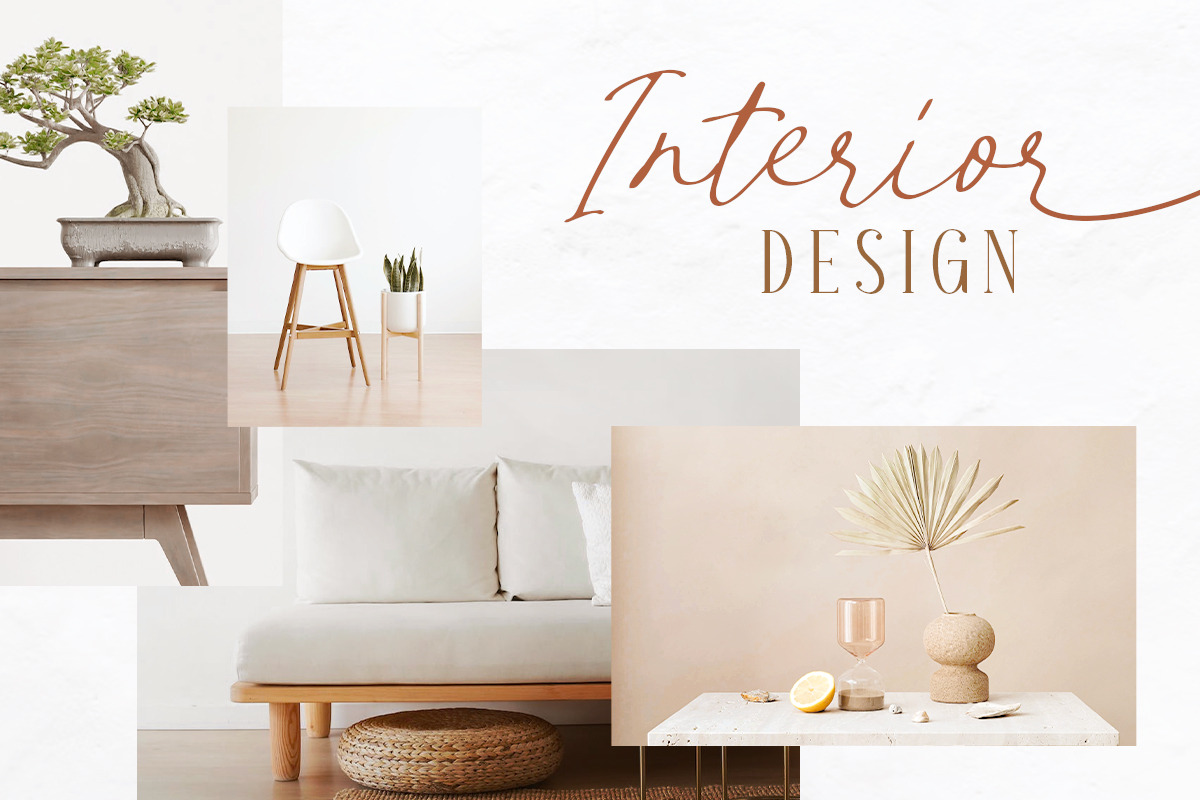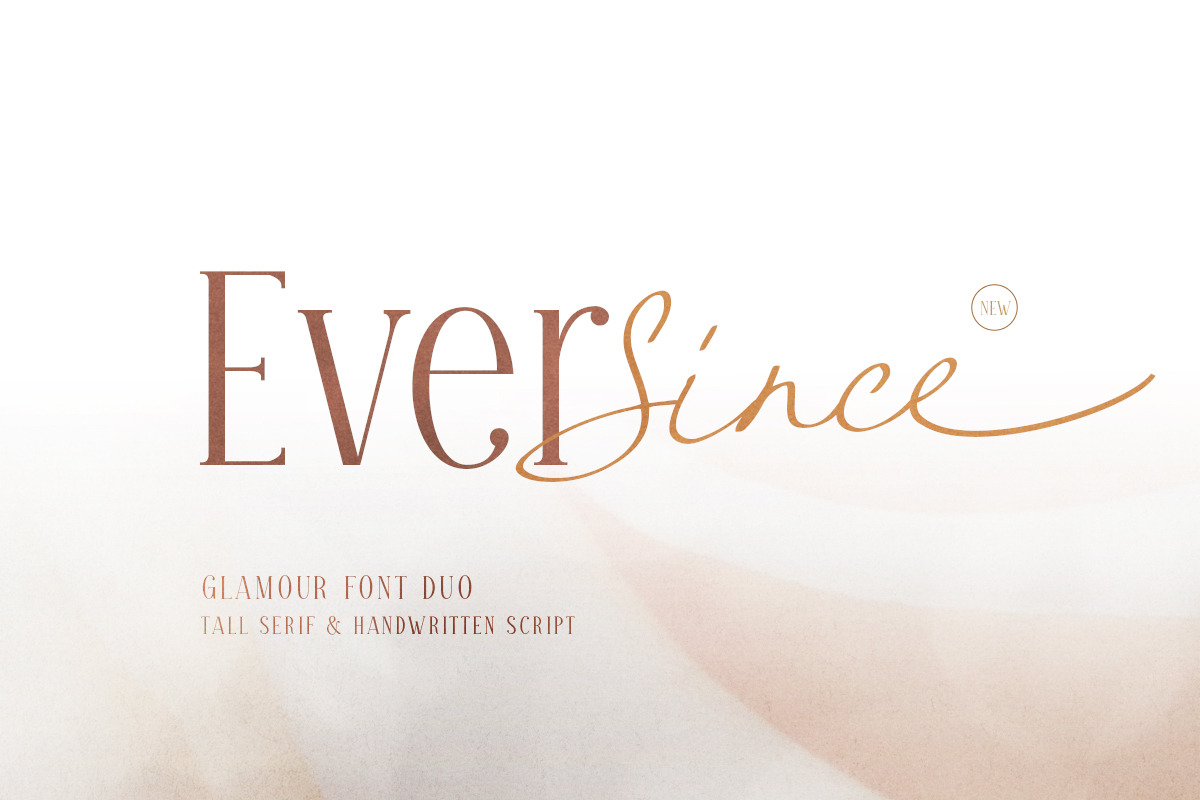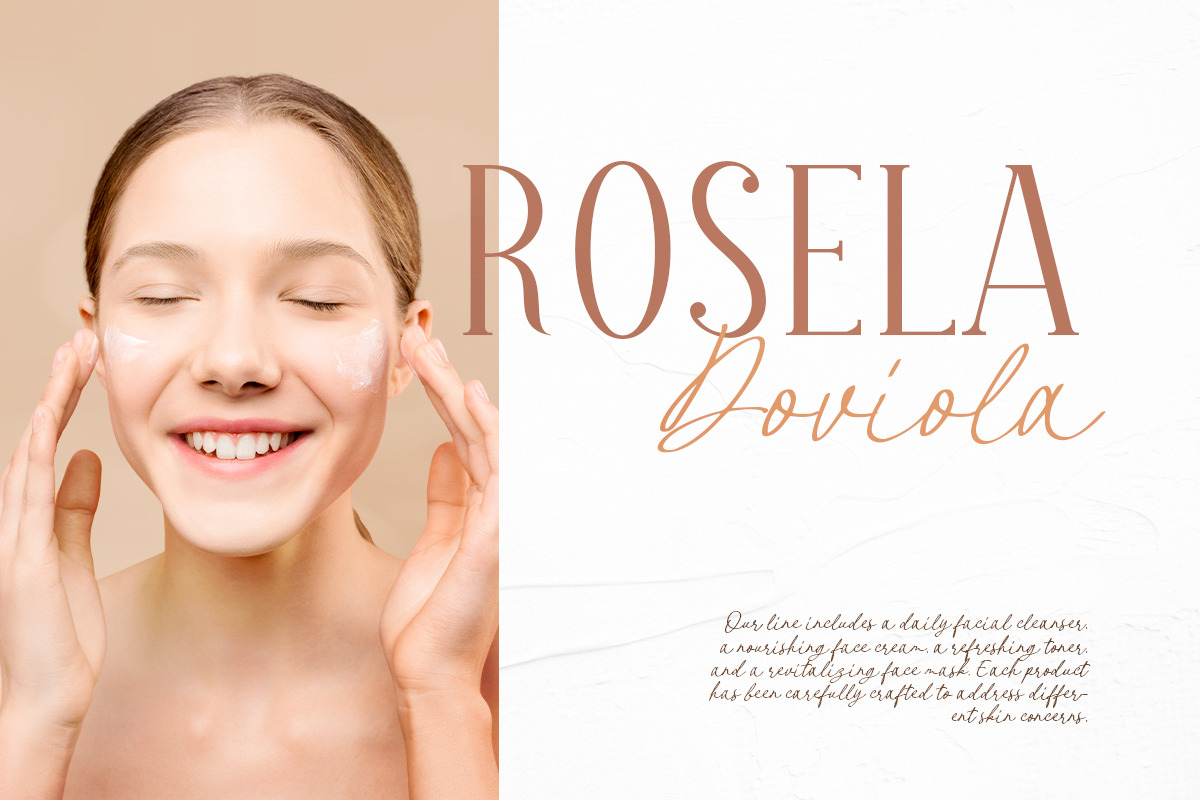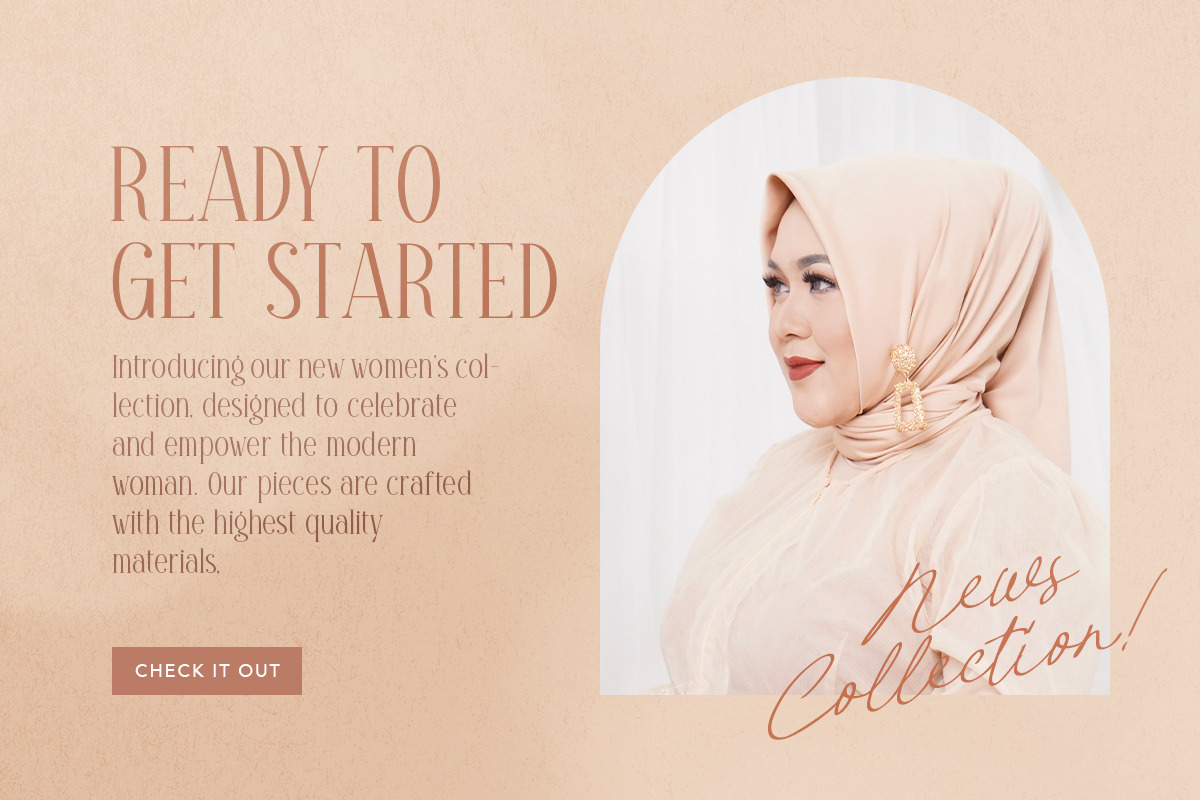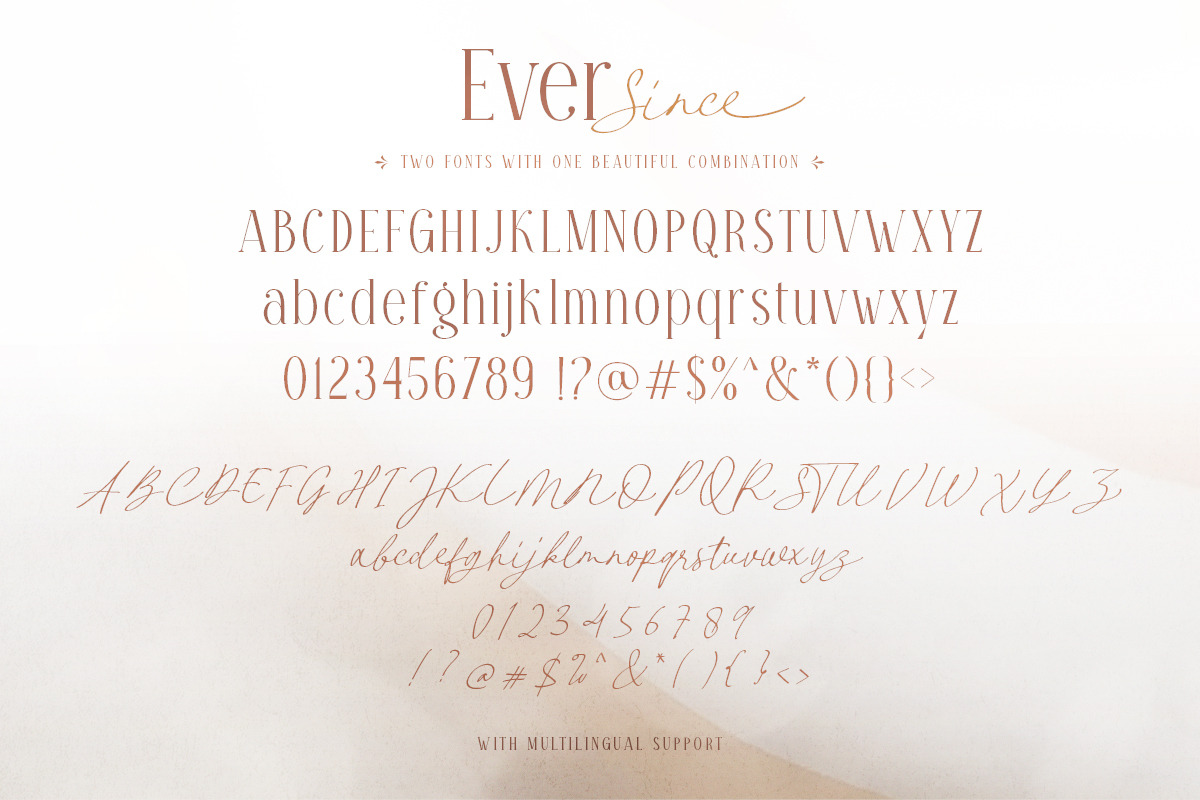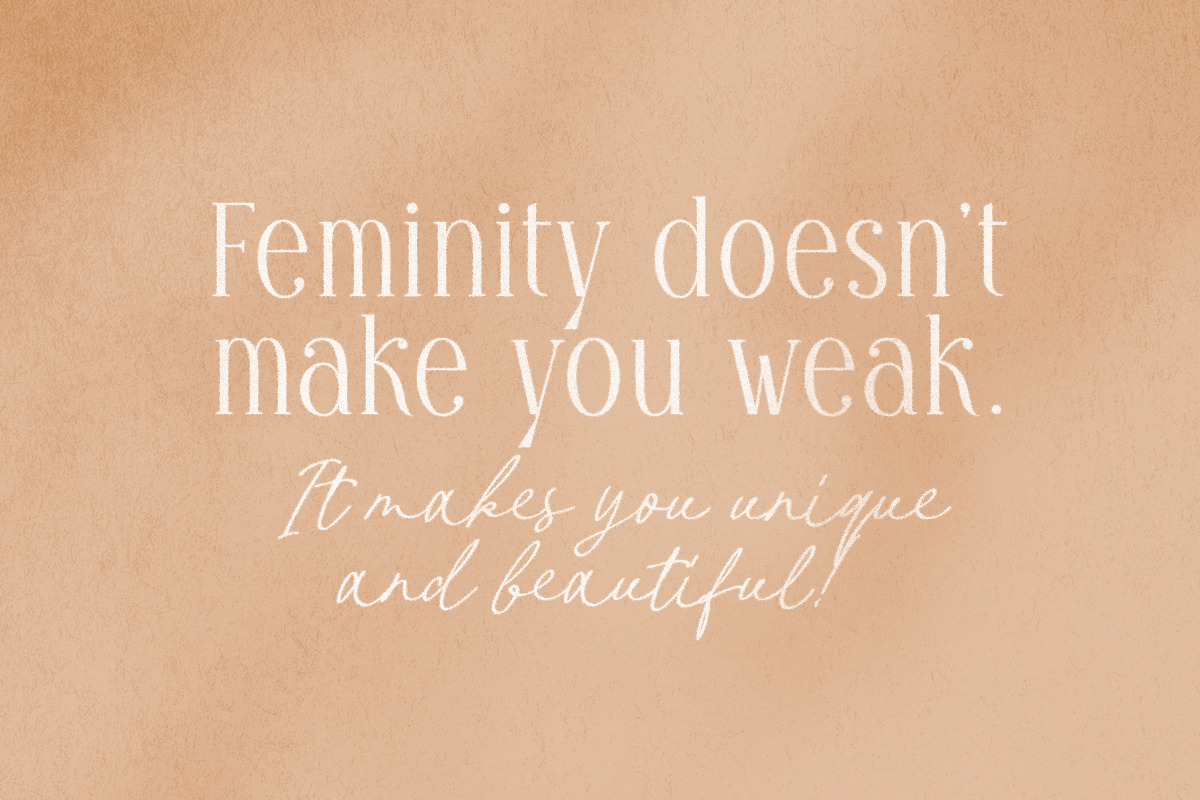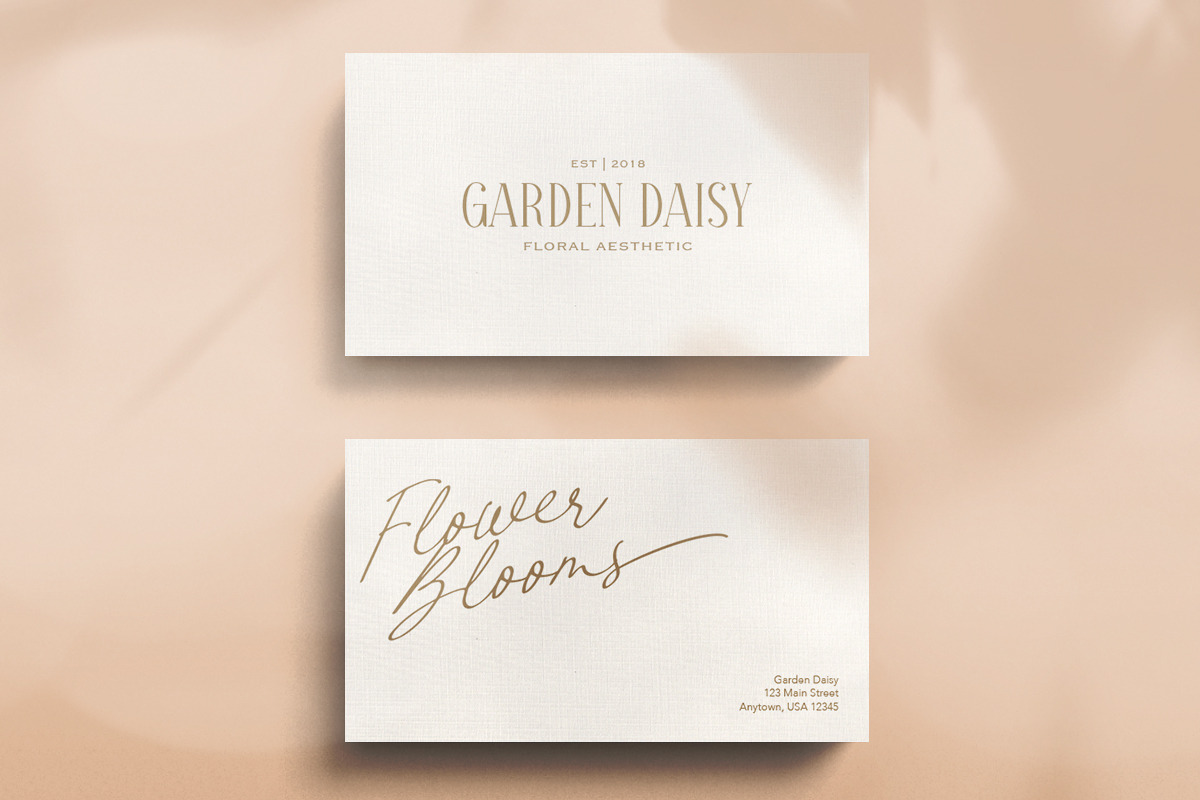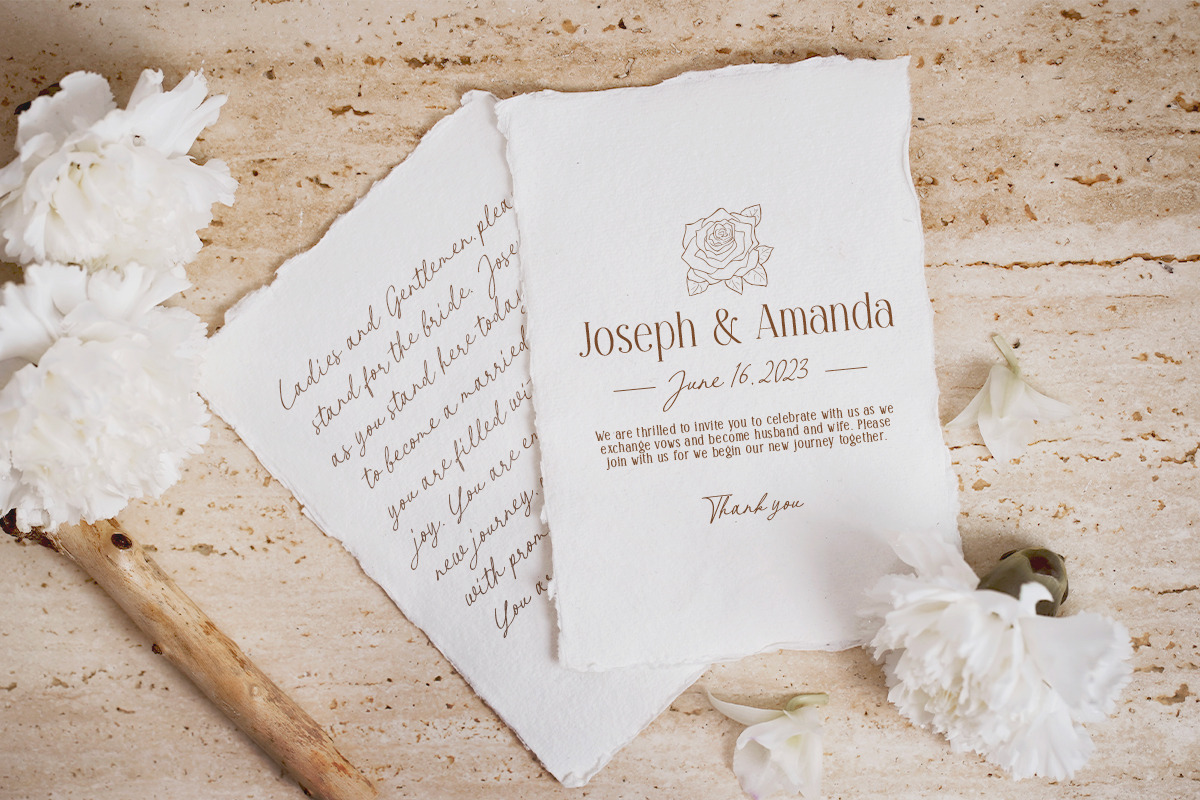
Ever Since - Glamour Font Duo
Introducing, Ever Since, glamour font duo!
Ever Since is a font duo that contains elegant tall serif and authentic handwriting script. You can use this fonts for any purpose, such as branding, logo, and suitable for wedding invitations. The tall serif include uppercase, lowercase, symbol and punctuation. The script have an ending swash that you can access from opentype feature. With minimalist and clean looks, this font is so versatile and for timeless use. Ever Since, also support multilingual